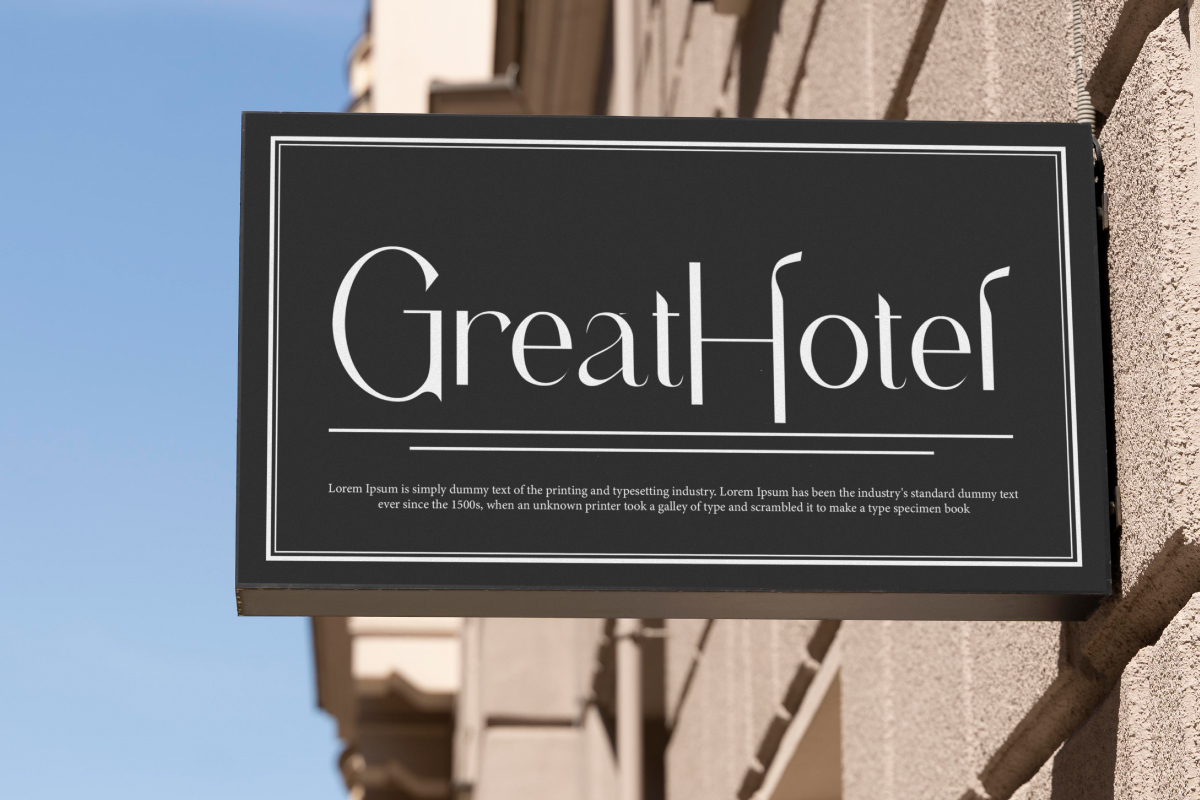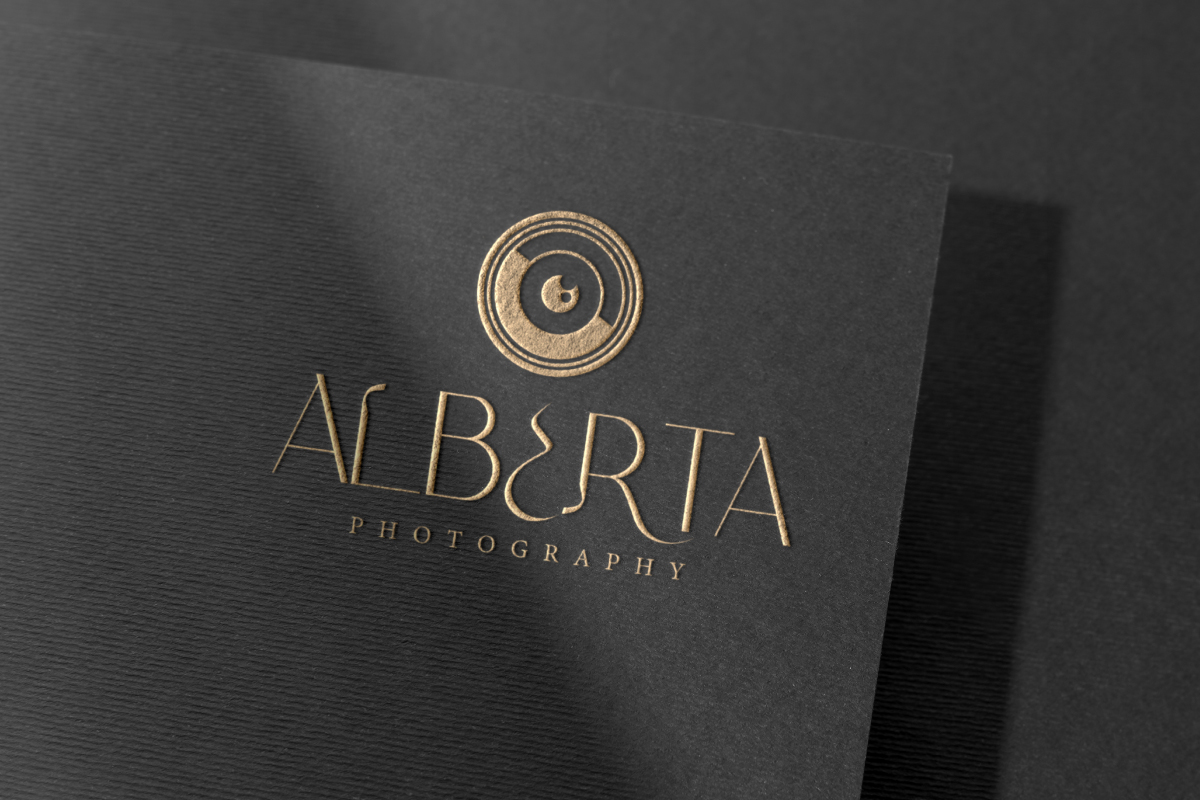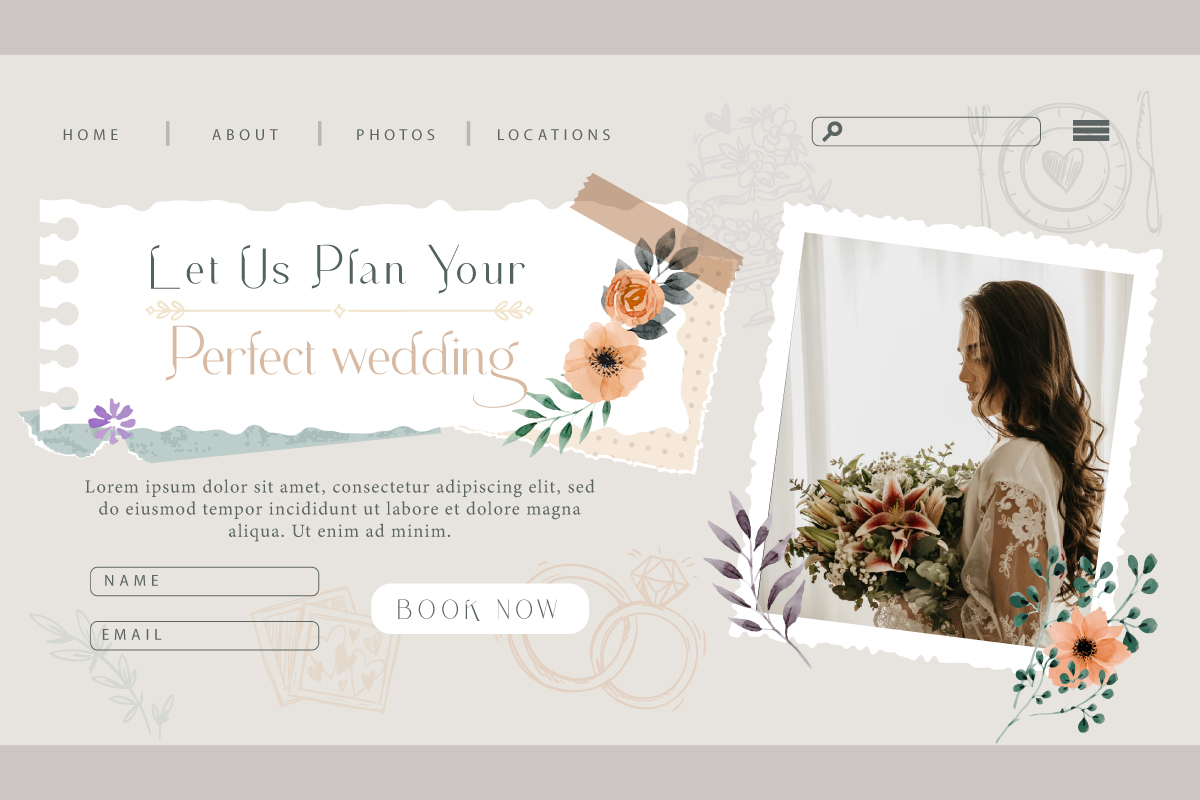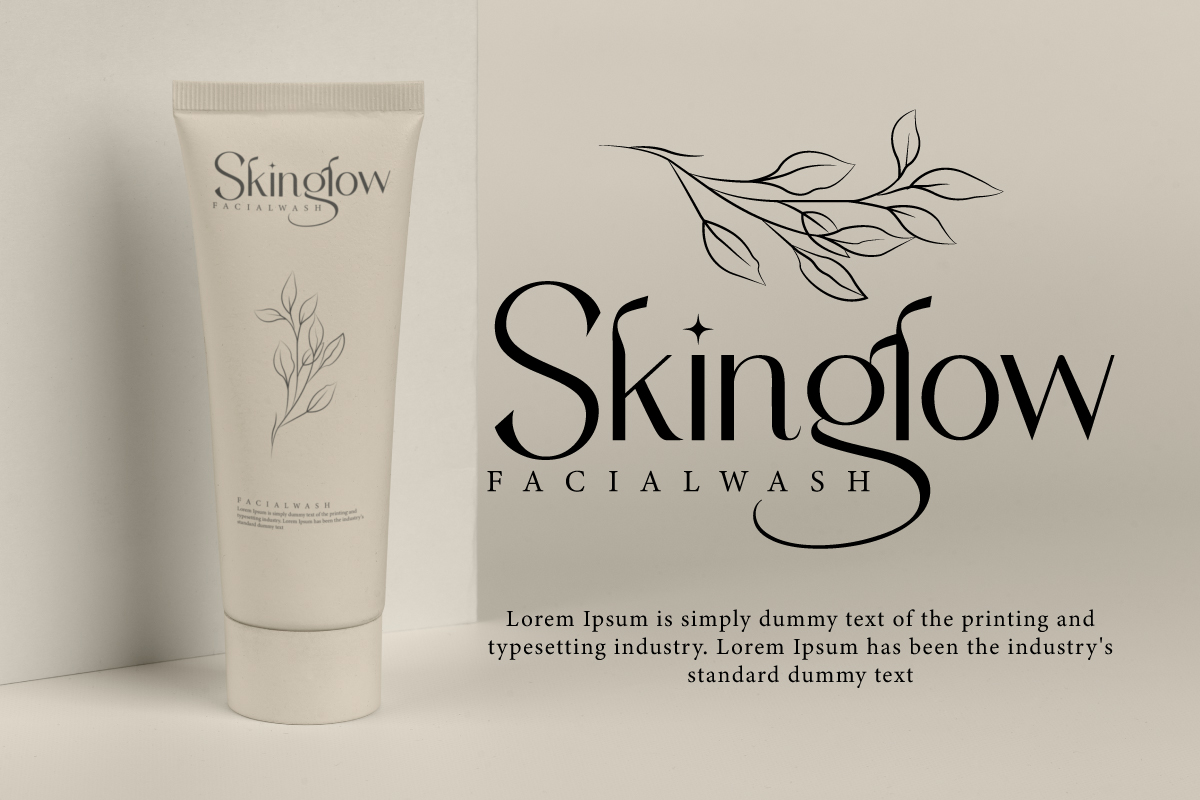
Handle Change Font
Handle Change Display Font
This is a stylish display font with unique look from CalligraphyFonts. This type has thin line and the upper indentation on some letters makes it different and stands out which is suitable for any creative project, such as: brand logo, headline, invitation, label, magazine, catalog, custom design, packaging design, print material, signage, stationery, website, etc.